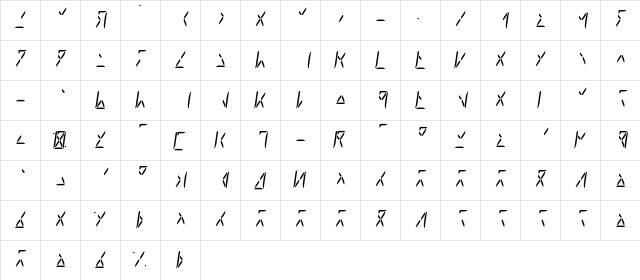
Segment8 Italic
| Designer | Daniel Wikholm |
Design Context for Segment8 Typeface
Segment8 takes a measured approach to typography — its balanced proportions and neutral character make it a reliable workhorse for both digital and print work. Its italic angle brings a sense of urgency and motion to the letterforms.